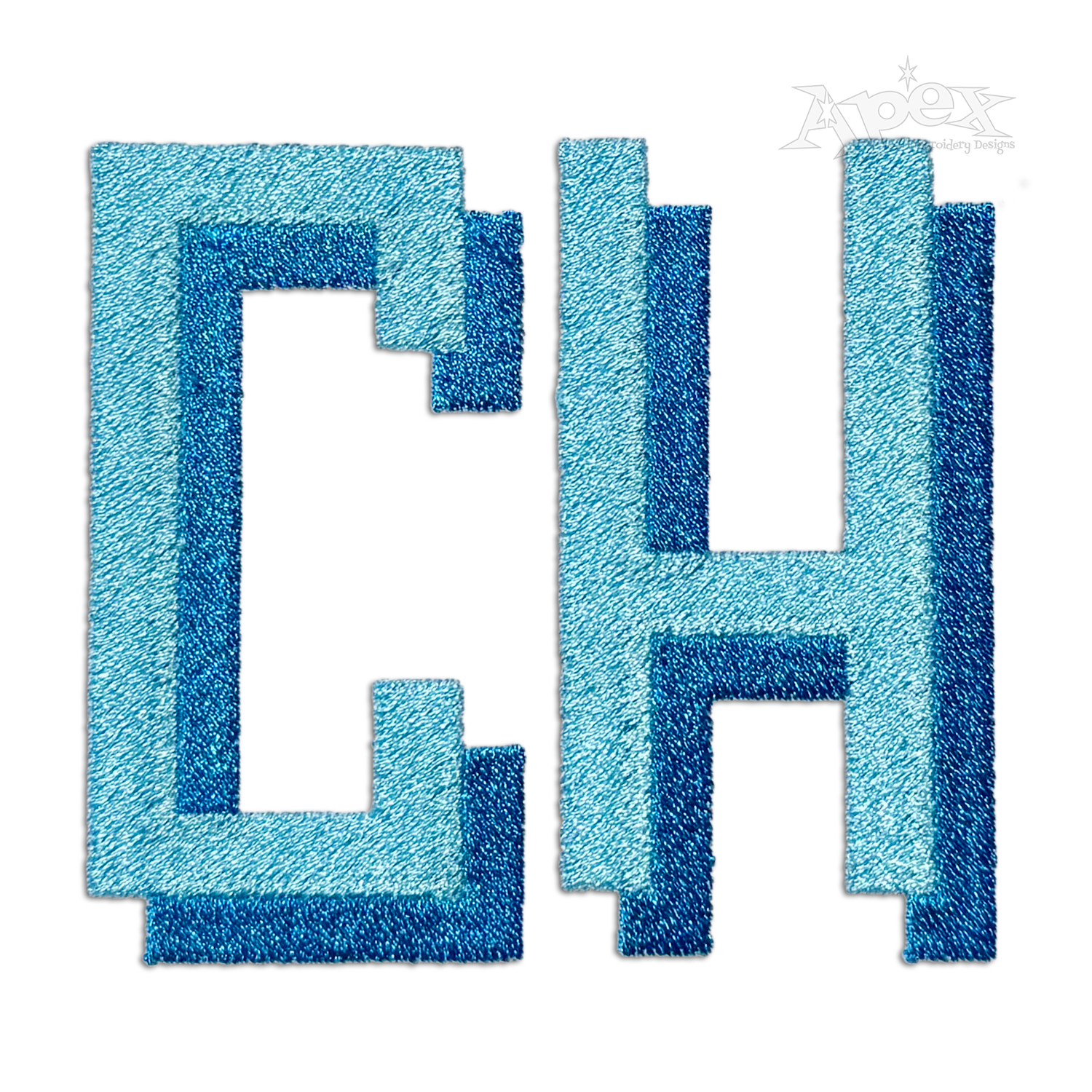
Stacked Shadow Embroidery Font
Vintage collegiate athletic heritage sparks creative digitizing vision. Bold double block typography evokes crisp autumn afternoons, varsity sidelines, timeless prep school corridors. Layered two-color architecture creates striking three-dimensional relief, bringing dynamic movement to flat textile surfaces. Every stitch path runs with intentional direction, balancing shadow depth against clean foreground prominence for unforgettable custom monogramming impact.
Project Ideas for Stacked Shadow
Bold architectural structure adapts effortlessly across diverse bespoke textiles:
- Varsity crewnecks and heavy fleece pullover center fronts
- Heavyweight canvas totes, duffel pockets, weekend travel gear
- Bespoke resort wear, personalized gifting, structured sun hats
- Heirloom bedding, crisp pillow shams, statement duvet corners
- Luxury table linens and linen cocktail napkins for modern entertaining
- Bridal robes and prep school graduation keepsake garments
- Center chest: position 3 inch or 4 inch letters across sweatshirts and varsity jackets for classic collegiate prominence
- Corner diagonal: stitch 2 inch letters across luxury table linens and linen cocktail napkins for tailored modern geometry
- Cuff and hem: apply 2 inch monogram details on bespoke resort wear shirts or jackets
- Border alignment: stack initials along border margins of heirloom bedding or canvas totes
Stacked Shadow Craft & Letterform Details
Precision digitizing demands flawless interplay between base shadow and top satin column. Digitized each letterform with synchronized stitch angles, preventing thread tension distortion across contrasting thread colors. Heavy satin stitch alphabet outlines feature reinforced underlay, maintaining razor-sharp geometric corners without fabric puckering. Recessed drop shadow creates genuine visual depth through calibrated stitch density, while crisp foreground columns deliver luminous sheen across linen, fleece, or canvas.